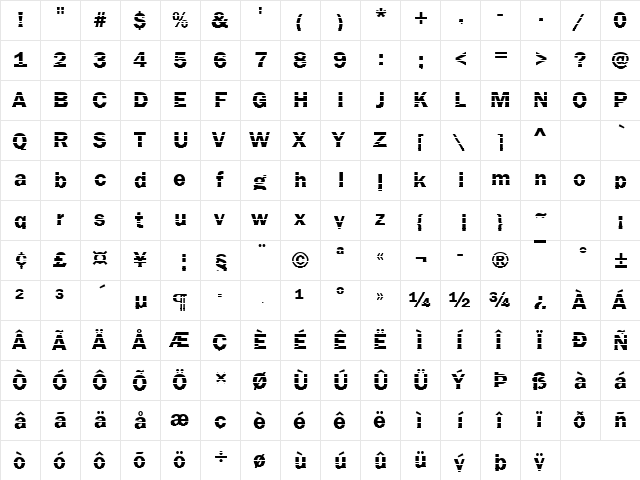
DTCFranklinGotM19 Regular
Design Context for DTCFranklinGotM19 Typeface
DTCFranklinGotM19 is a composed and adaptable typeface that performs quietly and consistently across a wide range of design contexts.